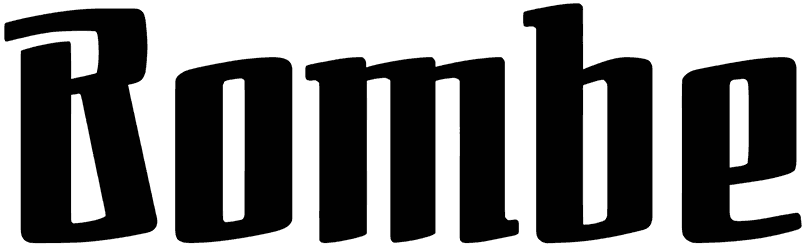
Bombe CAT Font
Using a unique letterform for your design will be a nice help to make it memorable, and this poster font with its specific visual can easily do it. Bombe CAT font’s characters are tall and distinct, and you have almost all of them. If you like to see the last show, set this retro font on your new project, such as a t-shirt, and enjoy the feedback.